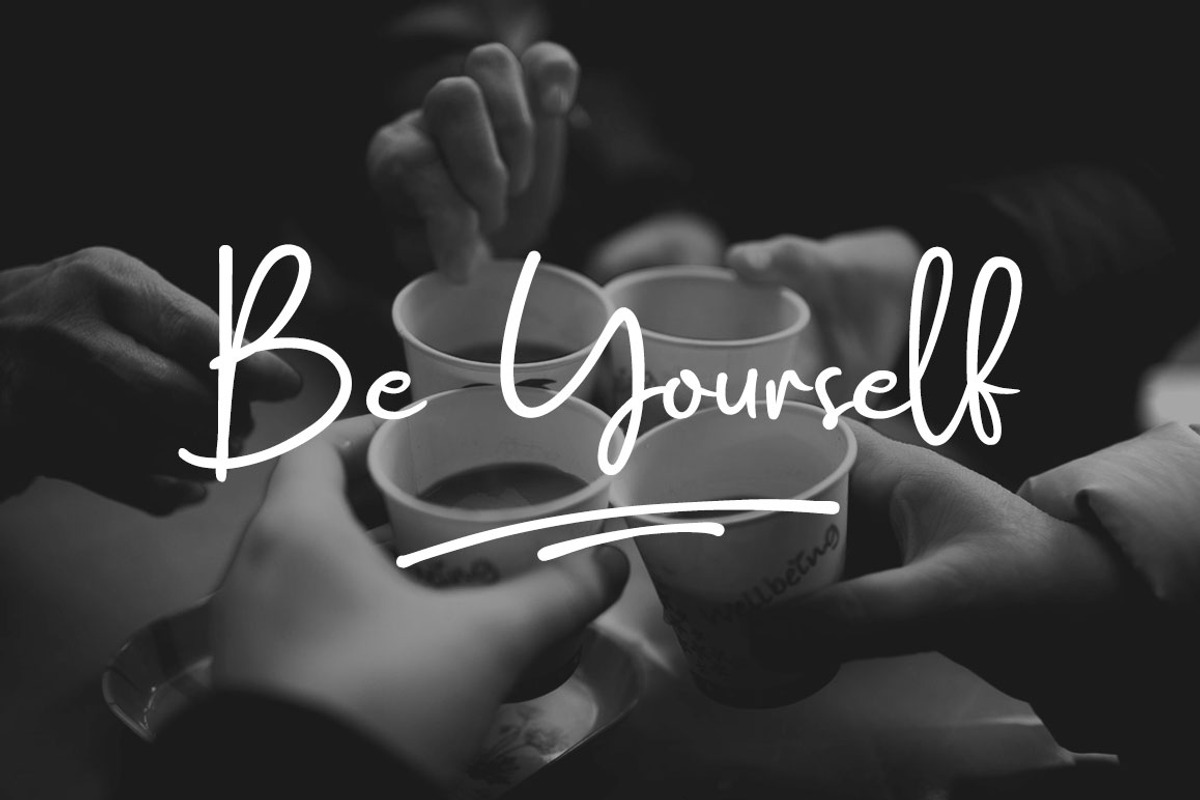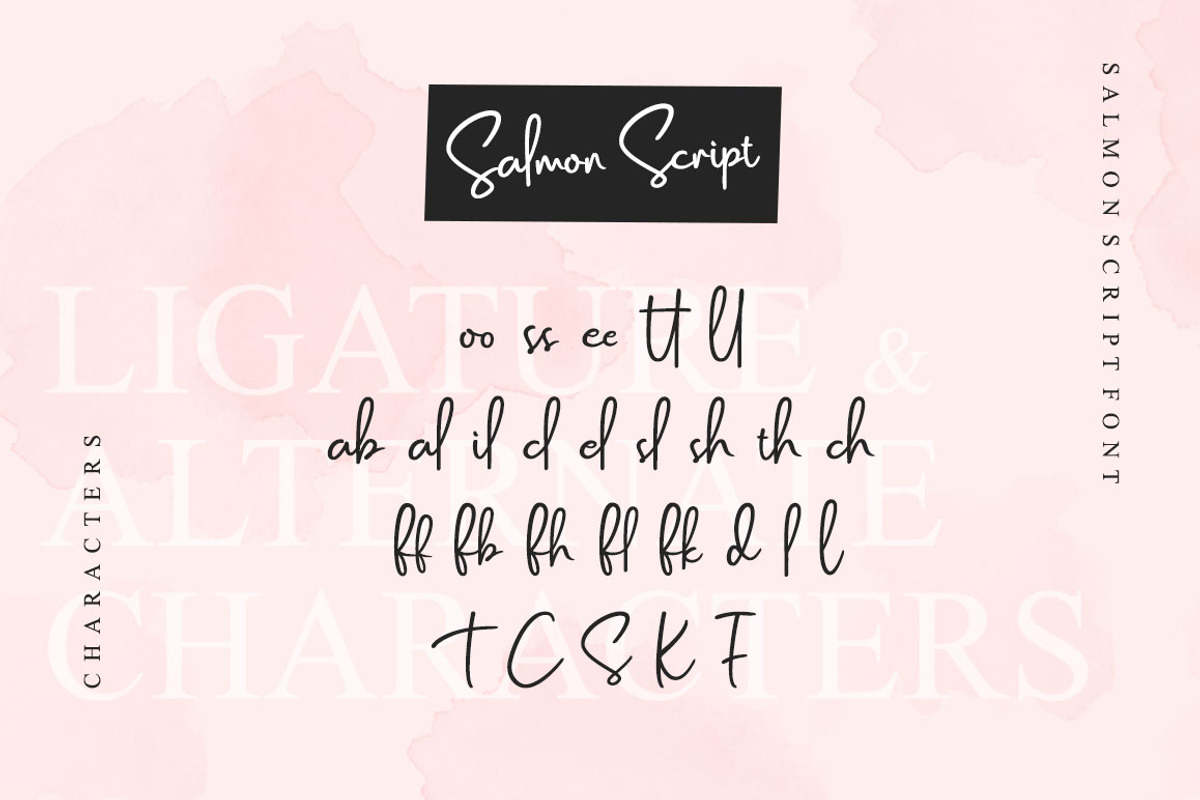
Salmon script is a handmade font that is very elegant, handsome and also has a modern simple style suitable for now.
This font is very suitable for use Logotype / Branding because it looks dashing and can also be product packaging, watermark, business cards, wedding designs and more.
What's feature in this font ?
- Punctuation and Number
- Multilingual Language
- Alternates Character